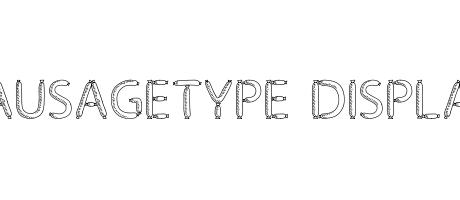
SausageType Display
SausageType Display is a whimsical, hand-drawn font where each letter is playfully constructed from plump sausages. Its charming, slightly irregular lines give it a unique, homemade feel, perfect for playful branding, quirky posters, or adding a fun, food-centric touch to any design. The font''s unconventional construction ensures it stands out from the crowd.